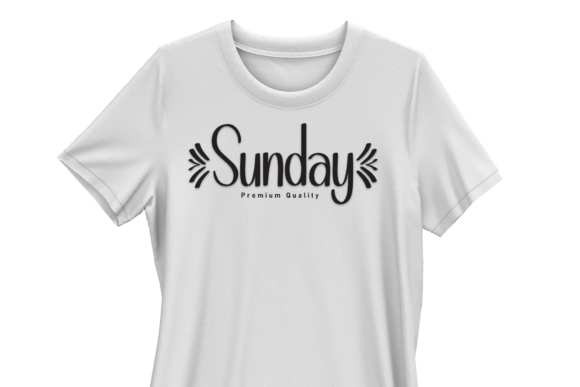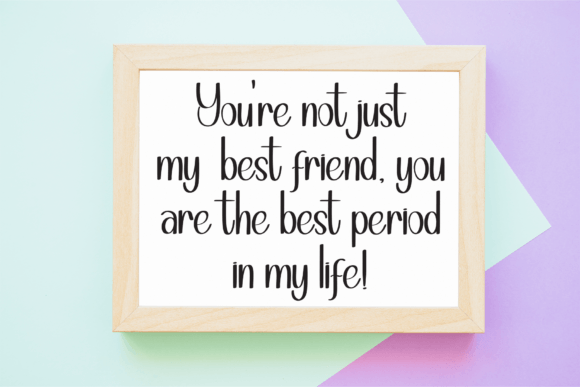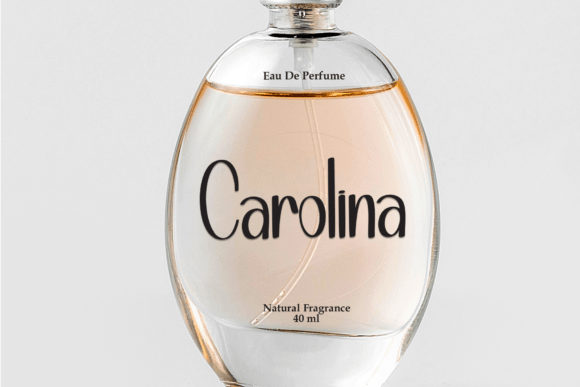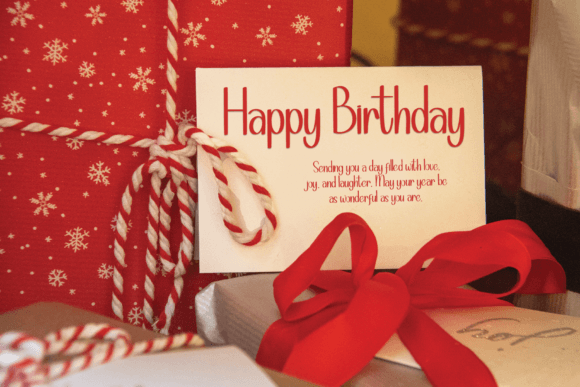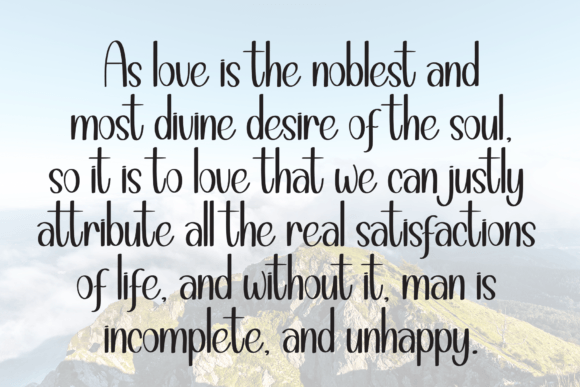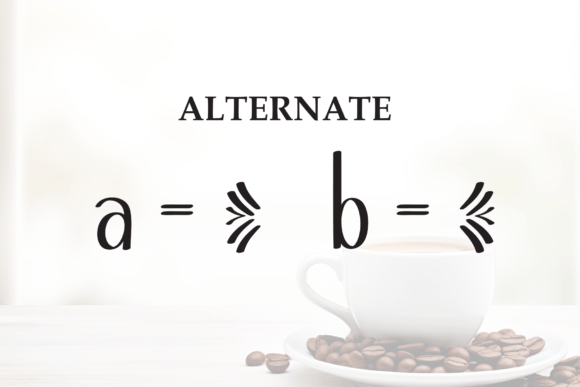
Coffee Font: The Perfect Addition to Your Design Arsenal
Are you a designer or crafter looking for a unique and friendly font to elevate your creative projects? Look no further than Coffee Font, a sweet and handwritten font that’s sure to capture the hearts of your audience. With its natural and distinctive style, Coffee Font is an incredibly versatile addition to any designer’s toolkit.
The Charm of Coffee Font
Coffee Font is a beautifully crafted handwritten font that’s designed to bring a touch of warmth and personality to your designs. Its natural, flowing lines and unique character make it perfect for a wide range of projects, from branding and packaging to invitations and social media graphics.
One of the standout features of Coffee Font is its friendly and approachable vibe. It’s the perfect font to use when you want to create a sense of connection with your audience and convey a sense of approachability. Whether you’re designing for a client or working on a personal project, Coffee Font is sure to help you create a lasting impression.
The Versatility of Coffee Font
The beauty of Coffee Font lies in its versatility. Its unique style makes it incredibly fitting for a large pool of designs, from modern and trendy to vintage and rustic. The only limit is your imagination! Here are just a few ideas to get you started:
- Branding and Packaging: Use Coffee Font to create eye-catching logos, labels, and packaging that will help your brand stand out.
- Invitations and Stationery: Add a personal touch to your invitations, greeting cards, and stationery with Coffee Font’s charming handwritten style.
- Social Media Graphics: Use Coffee Font to create engaging social media graphics, such as quotes, posters, and ads, that will capture the attention of your audience.
- Web Design: Incorporate Coffee Font into your web design to create a unique and memorable user experience.
Why Designers and Crafters Love Coffee Font
So, what makes Coffee Font so popular among designers and crafters? Here are just a few reasons:
- Unique Style: Coffee Font’s natural and unique style sets it apart from other fonts, making it perfect for designers who want to create something truly original.
- Easy to Read: Despite its handwritten style, Coffee Font is incredibly easy to read, making it perfect for body text and other applications where legibility is key.
- Highly Versatile: As mentioned earlier, Coffee Font is incredibly versatile, making it suitable for a wide range of designs and projects.
Coffee Font is a sweet and friendly handwritten font that’s sure to become a staple in your design toolkit. With its natural and unique style, versatility, and ease of use, it’s the perfect addition to any design or crafting project. So why wait? Download Coffee Font today and start creating stunning designs that will capture the hearts of your audience!